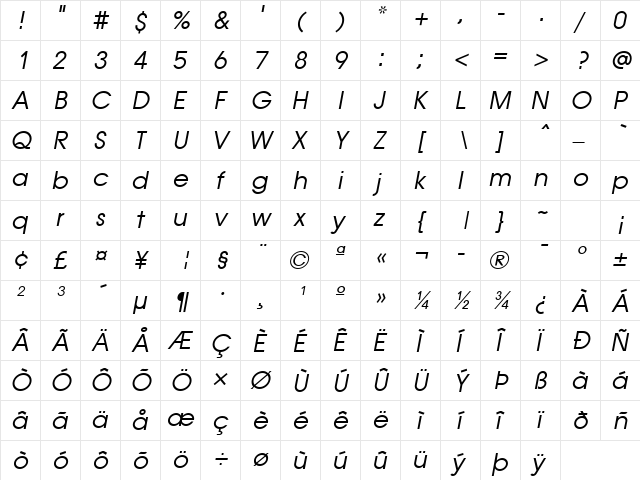
Atlanta BookOblique
Design Context for Atlanta Typeface
Atlanta is a composed and adaptable typeface that performs quietly and consistently across a wide range of design contexts. The slanted form adds forward momentum and visual energy.
Pro Tip: Use Atlanta for emphasis, pull quotes, and subheadings where its slanted energy can add rhythm to the layout.